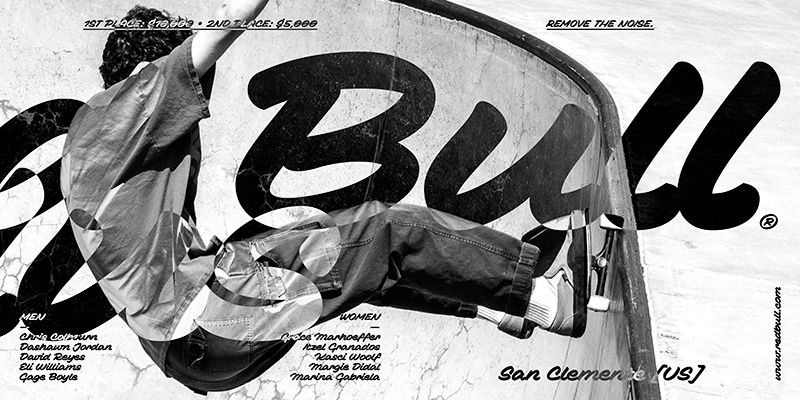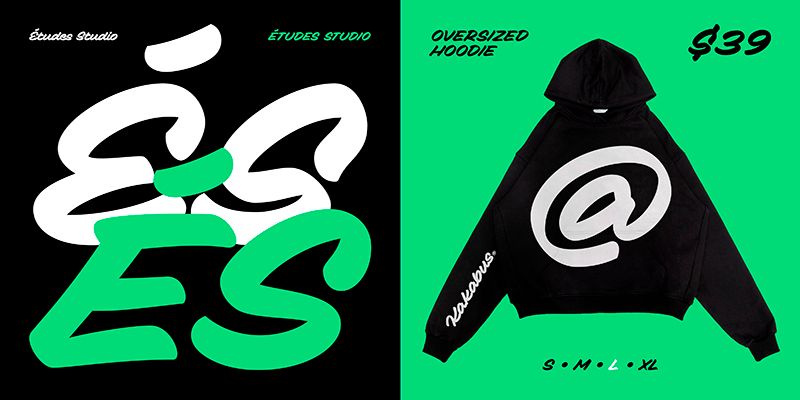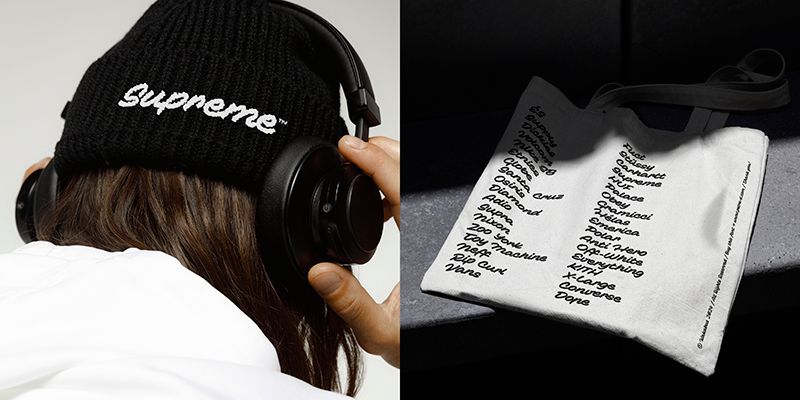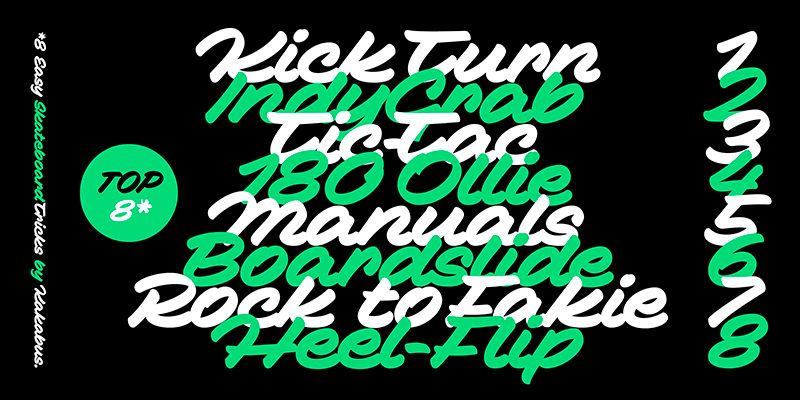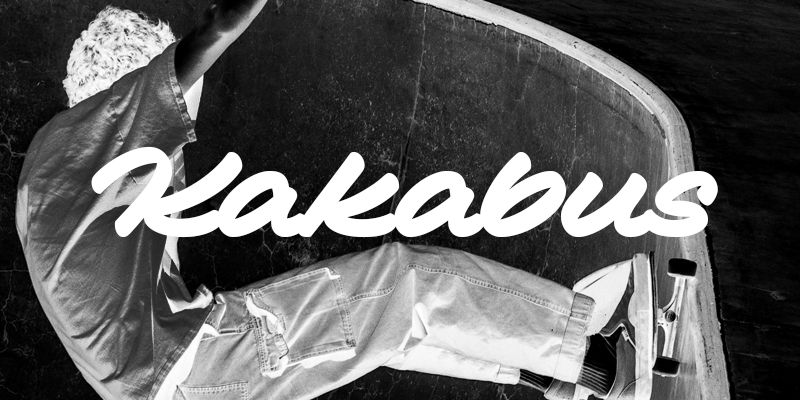
A playful marker-inspired script font brings a touch of fun! Easy to use and bursting with personality, Kakabus is perfect for branding, packaging & web design!
Kakabus is a script typeface that has been designed with user-friendliness in mind. It doesn’t need any OpenType features (like hidden ligatures, forced contextual alternatives, stylistic sets or contextual substitutions) to connect seamlessly. It feels connected because the letters slightly overlap, making it easy to use. The cursive forms of the characters (e.g. r and s) have been replaced by their upright alternates, further enhancing the font’s readability. The only exceptions in the features are fake small capitals, which you can use to set texts in all capitals.
The key characteristic oval stroke is defined by the round Centropen marker, whose tip is sharply terminated. Writing at a slight slant forms an oval with one sharp point. It happens when writing at slight angles, where the marker’s body is almost lying on the paper, and you write with the side of the tip. That way, the script can be written very quickly because the hand rests on a relatively large area of the paper and is confident. The stems are naturally bending when writing vertical strokes, according to the hand’s anatomy. When writing horizontal strokes, the rotation of the hand at 90° makes the stems a little darker than the vertical ones. A characteristic sharp bend is produced at the corners and eyes when writing rounded strokes.